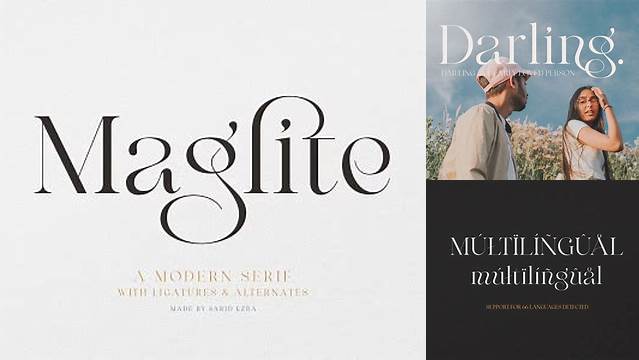
Maglite Font: Free Download And Elegant Uses
Are you on the lookout for a modern, elegant serif font that can add a touch of sophistication to your designs? Look no further, guys! In this article, we're diving deep into the world of Maglite, a stunning ligature serif font that's available for free download. We'll explore its unique features, discuss its best uses, and guide you on how to get your hands on this fantastic typeface. So, let's get started and discover how Maglite can elevate your creative projects!
What is Maglite? Understanding the Modern Ligature Serif
Maglite is a modern serif typeface characterized by its clean lines, elegant curves, and distinctive ligatures. Ligatures, for those unfamiliar, are special characters formed by combining two or more letters into a single glyph. These ligatures add a unique and polished touch to the font, making it stand out from more traditional serifs. The font embodies a contemporary aesthetic while retaining the timeless appeal of serif typefaces, striking a perfect balance between modernity and tradition. The beauty of Maglite lies in its versatility. It's not just a pretty face; it's a workhorse that can adapt to various design needs. Whether you're working on a branding project that requires a touch of class, editorial designs that demand readability and elegance, or web designs that need a font that's both stylish and functional, Maglite steps up to the plate. Imagine using Maglite for a high-end fashion brand – its sophisticated letterforms would perfectly complement the brand's luxurious image. Or picture it gracing the pages of a literary magazine, where its readability and elegant design would enhance the reading experience. The font's inherent sophistication and adaptability make it a designer's dream, allowing for creative exploration across different mediums and contexts. It’s this versatility that truly sets Maglite apart, making it a valuable asset in any designer's toolkit. Its subtle details and carefully crafted ligatures make it a joy to work with, encouraging creativity and ensuring a polished final product. Whether you're a seasoned designer or just starting out, Maglite offers a user-friendly experience, allowing you to create stunning typography with ease.
Key Features of Maglite Font: What Makes It Special?
Let’s talk about the key features of Maglite font that make it truly special. First and foremost, the ligatures are a standout element. These thoughtfully designed letter combinations create a seamless flow within the text, enhancing readability and adding a touch of visual flair. They elevate the font beyond the ordinary, giving it a distinctive character that sets it apart. Beyond ligatures, Maglite boasts a modern and clean design. Its letterforms are meticulously crafted, featuring a harmonious balance between thick and thin strokes. This careful attention to detail results in a typeface that is both elegant and legible, making it suitable for a wide range of applications. The font's clean lines contribute to its overall contemporary feel, ensuring it remains fresh and relevant in today's design landscape. Furthermore, Maglite offers excellent readability, which is paramount for any font, especially one intended for body text. The letter spacing and kerning (the space between individual letters) have been carefully considered to ensure optimal reading comfort. This makes Maglite a great choice for lengthy texts, such as articles, books, or website content, where readability is of utmost importance. Maglite isn't just about aesthetics; it's about functionality too. Its design prioritizes the reader's experience, ensuring that the text is not only beautiful but also easy to engage with. In addition to its core features, Maglite often includes a variety of weights and styles, adding to its versatility. This might encompass regular, bold, italic, and other variations, allowing designers to create visual hierarchy and add emphasis within their designs. The availability of multiple weights and styles makes Maglite a flexible tool, empowering designers to achieve a wide range of visual effects while maintaining a consistent typographic voice. This adaptability makes it a valuable asset for projects that require a nuanced approach to typography.
Best Uses for Maglite: Where Does It Shine?
So, where does Maglite truly shine? This modern ligature serif font is incredibly versatile, making it suitable for a wide array of design projects. Its elegance and readability make it a fantastic choice for branding and logo design. Imagine a sophisticated logo for a luxury brand, a boutique hotel, or a high-end restaurant – Maglite's refined letterforms would perfectly convey an image of quality and sophistication. The font's inherent classiness adds a touch of luxury, making it ideal for brands that want to project an aura of exclusivity and refinement. Furthermore, Maglite excels in editorial design. Its readability and classic serif structure make it an excellent option for magazines, books, and newspapers. The font's ligatures add a subtle visual interest, enhancing the reading experience without being distracting. Whether you're designing the body text of a novel or the headlines of a magazine article, Maglite ensures a visually appealing and easily digestible layout. Its balanced letterforms and thoughtful spacing contribute to a comfortable reading flow, making it a reliable choice for projects that prioritize readability. In the digital realm, Maglite is equally impressive. It works beautifully for website headers, body text, and other online content. Its clean lines and clear letterforms ensure legibility on screens of all sizes, a crucial consideration for web design. A font may look stunning in print but fall short on a screen, but Maglite bridges this gap effortlessly. Its adaptability to digital platforms makes it a valuable asset for web designers looking to create visually engaging and user-friendly websites. Maglite's versatility extends beyond these core areas. It can also be used effectively for invitations, posters, packaging, and a myriad of other design applications. Its ability to adapt to different contexts is a testament to its thoughtful design and timeless appeal. Whether you're working on a formal invitation or a bold poster, Maglite offers a touch of elegance and sophistication that elevates the final product.
Tips for Using Maglite Effectively: Design Best Practices
Now that you've got Maglite in your font arsenal, let's talk about how to use it effectively! Like any design tool, a font is only as good as its application. Understanding the best practices for using Maglite will help you create stunning designs that truly shine. One of the first things to consider is pairing Maglite with other fonts. While Maglite is beautiful on its own, combining it with a complementary typeface can elevate your designs to a new level. A general rule of thumb is to pair a serif font like Maglite with a sans-serif font for contrast. For example, you might pair Maglite with a clean, modern sans-serif like Montserrat or Open Sans. This creates a visual hierarchy, making your designs more engaging and readable. However, don't be afraid to experiment! Sometimes unexpected pairings can yield fantastic results. Exploring different combinations will help you develop your eye for typography and discover unique stylistic expressions. Font size and spacing are also crucial considerations. Maglite's elegance can be lost if it's used at an inappropriate size or with poor spacing. Ensure that the font is legible at the size you're using it, especially for body text. Pay attention to the leading (the space between lines of text) and kerning (the space between individual letters). Adjusting these elements can significantly impact the readability and overall appearance of your design. A well-spaced text block is inviting and easy on the eyes, while a poorly spaced one can be daunting and difficult to read. The context in which you're using Maglite is another key factor to consider. A font that looks fantastic in one context might not work as well in another. Think about the overall tone and message of your design. Is it formal and sophisticated, or casual and playful? Maglite's elegance makes it a great choice for projects that require a touch of sophistication, but it might not be the best fit for a design that's intended to be whimsical or fun. Understanding the nuances of your design's context will help you choose the right font and use it effectively. Finally, remember that less is often more. Don't overcrowd your design with too many fonts or decorative elements. Maglite's beauty lies in its simplicity, so let it shine. A clean and minimalist approach can often be the most impactful. By focusing on clarity and visual hierarchy, you can create designs that are both elegant and effective. Mastering these best practices will empower you to use Maglite to its full potential, creating designs that are both visually stunning and functionally sound.
Conclusion: Embrace the Elegance of Maglite
In conclusion, Maglite is a modern ligature serif font that offers a blend of elegance, versatility, and readability. Its distinctive ligatures and clean design make it a standout choice for a wide range of projects, from branding and logo design to editorial layouts and website typography. And the best part? You can download it for free from various reputable sources! By following the tips and guidelines outlined in this article, you can harness the power of Maglite to create stunning designs that leave a lasting impression. So, go ahead, guys – embrace the elegance of Maglite and let your creativity flow!